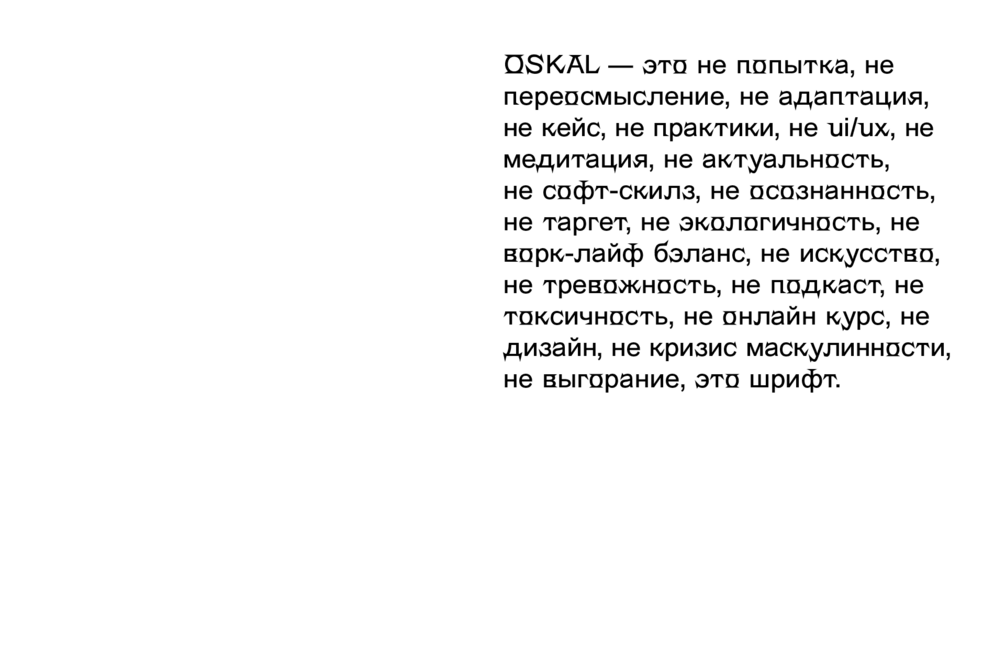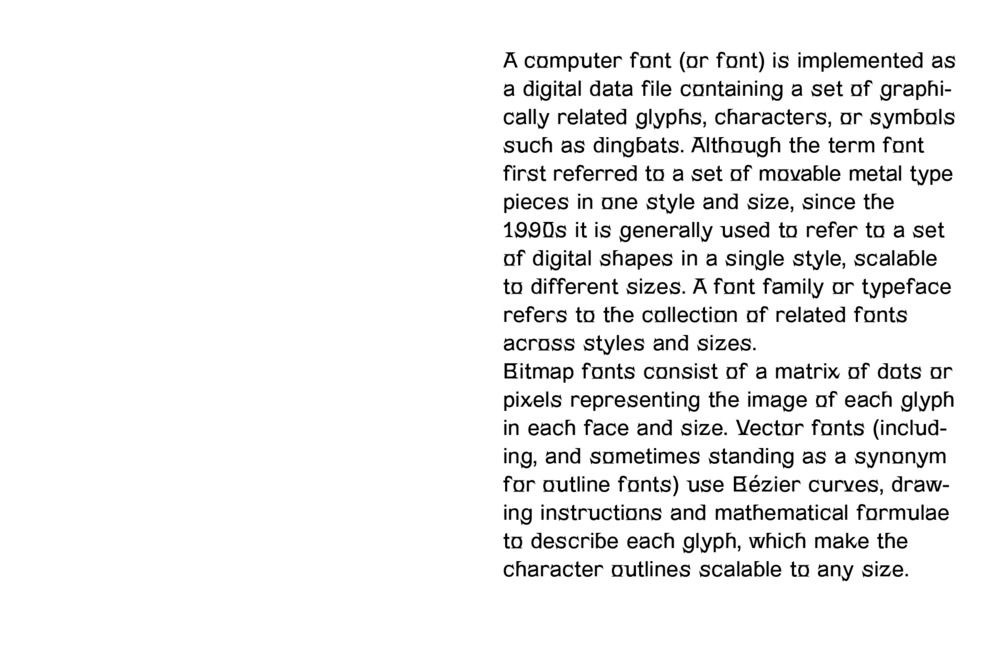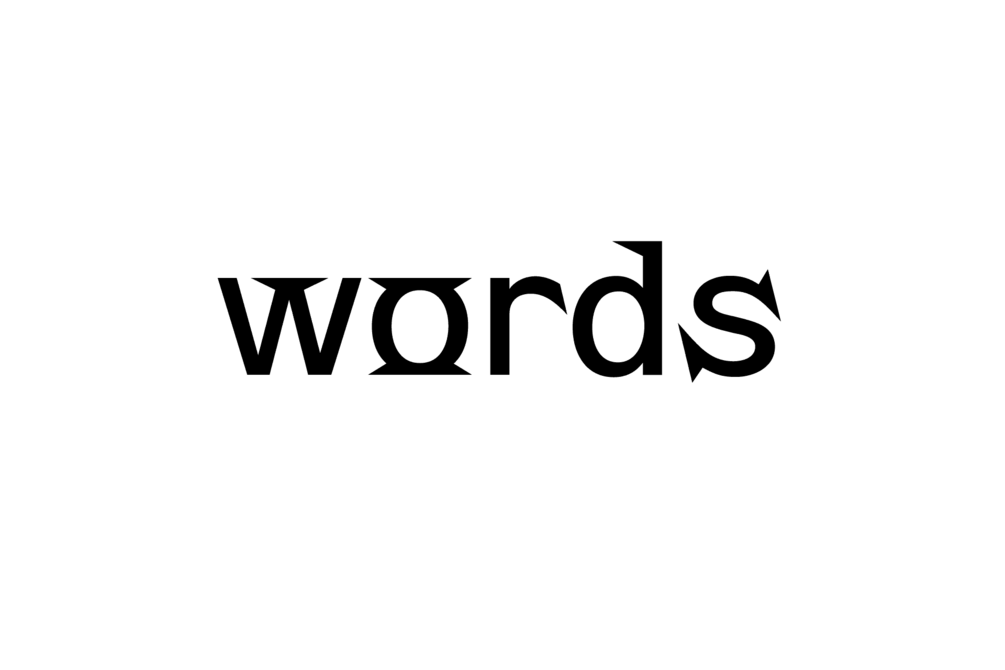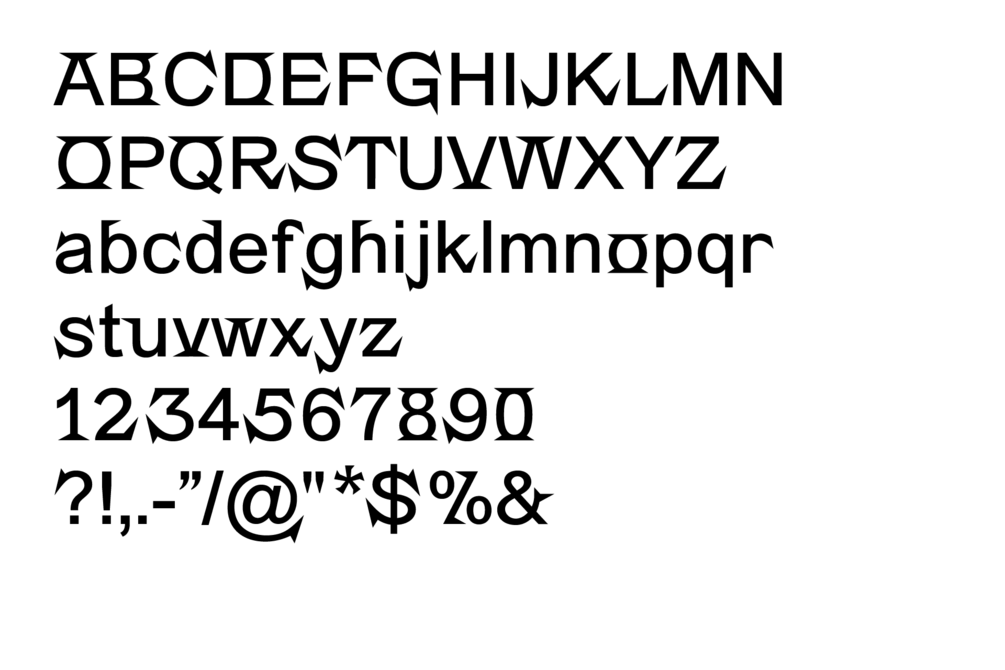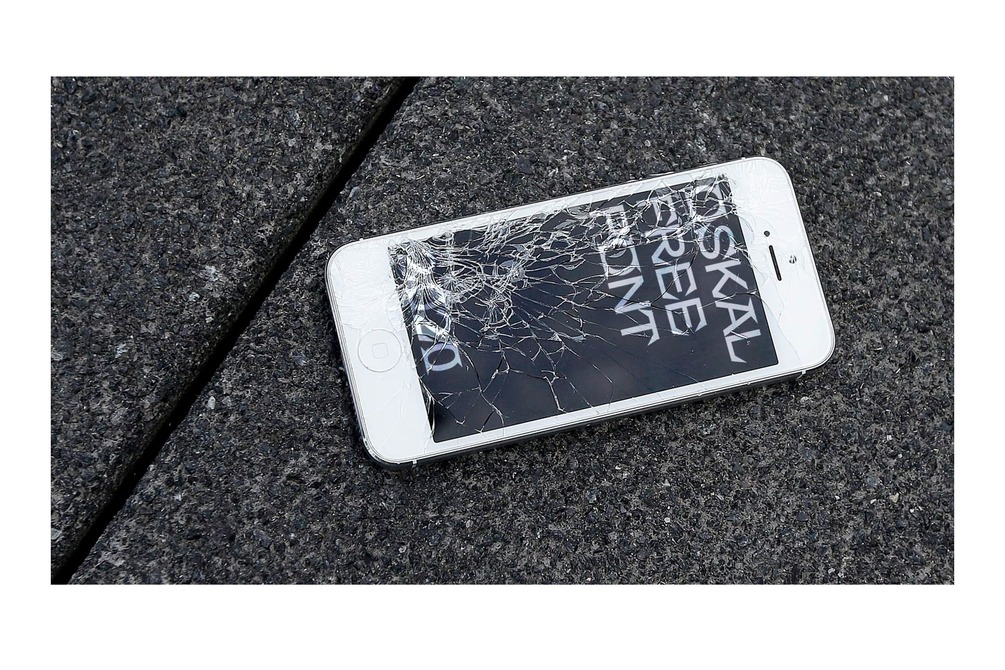
"Oskal" font
Oskal is simply grotesque with sharp serifs. In its design, the font refers to the most neutral of the neutral fonts, I will not say which one. But sharpened serifs add acuteness and anger to the usual font. I would say this is such a "mad clerk who shouts at his superiors and quits". The serifs are not added on the principle of antiqua, but only in certain places to create the desired effect.